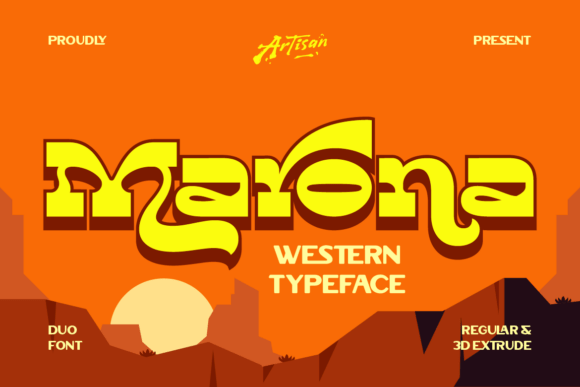
Introducing Marona Font: The Bold Western-Inspired Typeface with a Modern Twist
In the world of typography, fonts play a crucial role in conveying the tone and personality of a brand or design. With so many fonts available, it can be challenging to find one that stands out from the crowd while still maintaining a level of sophistication. This is where Marona Font comes in – a bold, western-inspired typeface with a modern, playful twist that’s perfect for making a statement.
What is Marona Font?
Marona Font is a unique and eye-catching typeface that combines the ruggedness of western typography with a modern, playful vibe. Its chunky curves and distinctive letterforms give off a fun yet strong impression, making it an excellent choice for logos, posters, headlines, or any design that needs to grab attention.
Key Features of Marona Font
- Bold and Western-Inspired: Marona Font boasts a bold and rugged design that’s reminiscent of traditional western typography.
- Modern and Playful Twist: Despite its classic inspiration, Marona Font has a modern and playful twist that sets it apart from more traditional typefaces.
- Chunky Curves: The font’s chunky curves add a touch of whimsy and friendliness to its overall design.
- Unique Letterforms: Marona Font’s letterforms are uniquely designed to give the font a distinctive and recognizable style.
- Two Styles: Marona Font comes in two styles: Regular and Extrude (3D), offering users a range of creative possibilities.
What Can You Use Marona Font For?
Marona Font’s versatility makes it suitable for a wide range of design applications. Here are some ideas to get you started:
- Logos: Marona Font’s bold and playful design makes it perfect for logos that need to stand out.
- Posters: Whether you’re promoting a concert, event, or product, Marona Font is sure to grab attention.
- Headlines: Add a touch of western flair to your headlines with Marona Font’s unique and eye-catching design.
- Branding: Use Marona Font to add a bold and playful touch to your brand’s typography.
The Style and Vibe of Marona Font
Marona Font has a distinct style and vibe that’s hard to ignore. Its bold and chunky design gives off a fun and adventurous feel that’s perfect for brands or designs that want to convey a sense of confidence and playfulness.
Whether you’re looking to evoke the spirit of the wild west or simply add a touch of boldness to your design, Marona Font is an excellent choice. Its unique letterforms and chunky curves make it instantly recognizable, while its modern and playful twist keeps it feeling fresh and contemporary.
Marona Font Styles: Regular and Extrude (3D)
Marona Font comes in two styles: Regular and Extrude (3D). The Regular style is perfect for designs that need a bold and playful touch, while the Extrude style adds an extra dimension of depth and visual interest.
The Extrude style is ideal for designs that need to stand out even more, such as billboards, signage, or promotional materials. Its 3D effect adds a level of sophistication and professionalism, making it perfect for high-impact designs.
Tips and Tricks for Using Marona Font
Here are some tips and tricks for getting the most out of Marona Font:
- Experiment with Colors: Marona Font looks great in bold and bright colors, so don’t be afraid to experiment and find the perfect hue for your design.
- Play with Texture: Adding texture to your Marona Font design can add an extra level of depth and visual interest.
- Mix and Match: Try pairing Marona Font with other fonts to create a unique and eye-catching combination.
| Font Name | Marona Font |
Marona Font is a bold and western-inspired typeface with a modern, playful twist that’s perfect for making a statement. Its chunky curves and unique letterforms give off a fun yet strong vibe, making it ideal for logos, posters, headlines, or any design that needs to stand out.
With its two styles – Regular and Extrude (3D) – Marona Font offers users a range of creative possibilities. Whether you’re looking to evoke the spirit of the wild west or simply add a touch of boldness to your design, Marona Font is an excellent choice.